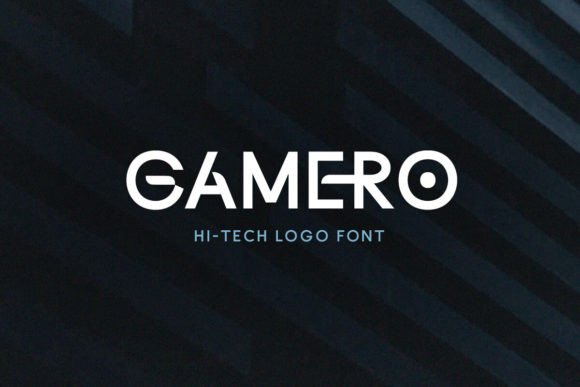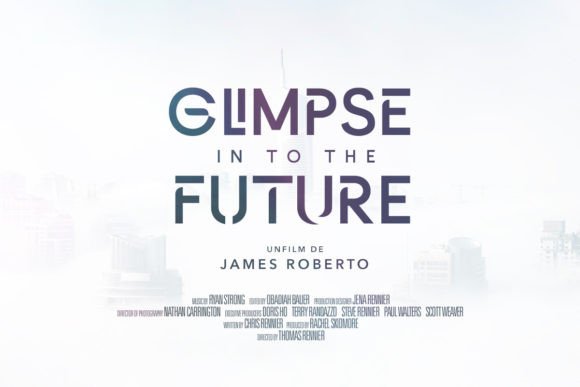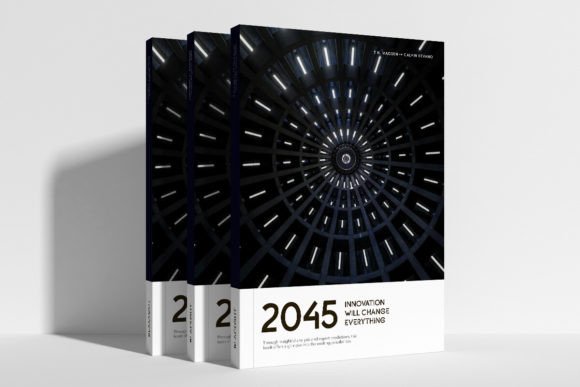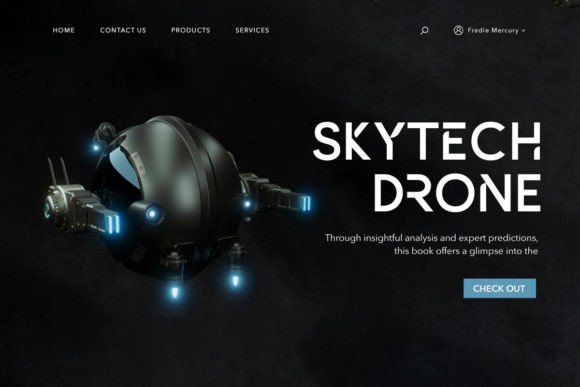
Gamero Font: Hi-Tech & Unique Font for Futuristic Logo Design
About the Gamero Font
Discover the charm of Gamero Font. This font is a perfect blend of modern aesthetics and classic appeal. Gamero is a hi-tech logo-inspired font with unique and futuristic looks. With a stylish fracture in lowercase mode, you can combine the uppercase and lowercase to make your logo unique.
Gamero excels in logo design, headlines, and short, impactful titles where its futuristic aesthetic shines. It’s ideal for tech brands, gaming companies, and projects requiring a bold, modern feel. Avoid using Gamero for body text or lengthy paragraphs; its unique forms are not optimized for readability in extended use.
Pairing Gamero with a clean sans-serif like Open Sans for body copy creates a strong contrast and visual balance, while a geometric sans-serif like Futura would amplify its futuristic edge. For a softer counterpoint, consider a neutral serif like Garamond for supporting text.
Its core personality is undeniably bold and high-tech, projecting a sense of innovation and energy. The fractured lowercase letters add a touch of playful asymmetry, making it suitable for brands that wish to convey both sophistication and a dynamic spirit.
Gamero Font Usage Examples
Gamero Font Example